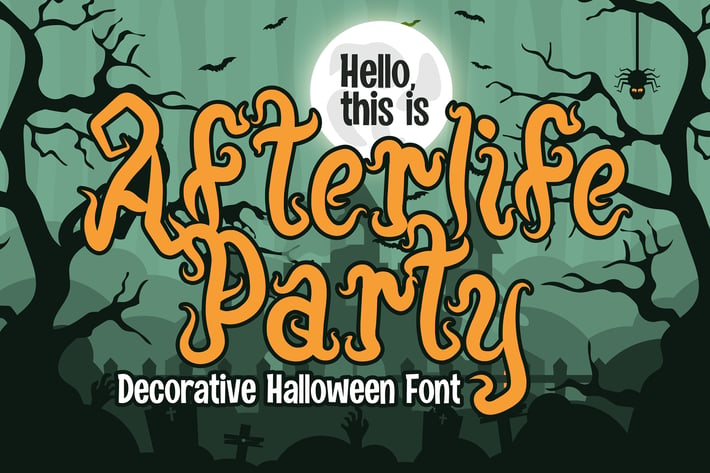
Afterlife Party - Halloween Font
Hello, this is Afterlife Party, a Unique display font that is prepared to welcome Halloween.
Afterlife Party comes with an awesome curly style, make it very perfect to use for quotes, logotypes, badges, labels, packaging, t-shirts, or simply use it in your next design project. Especially in Halloween celebrations